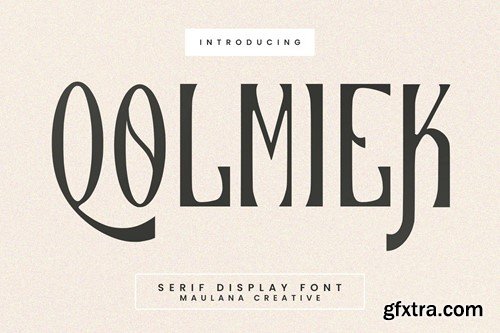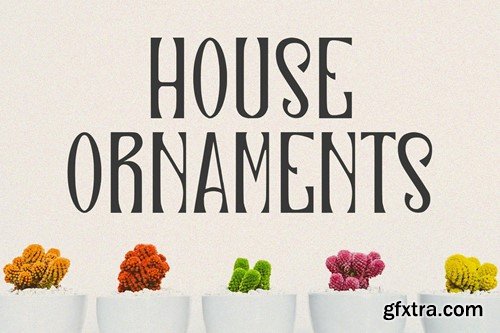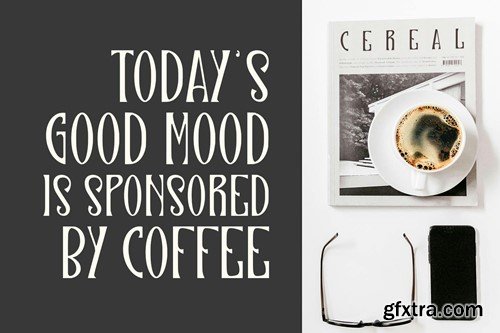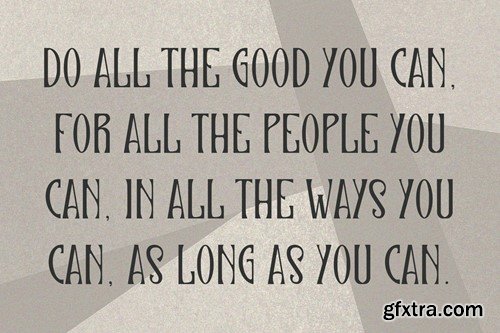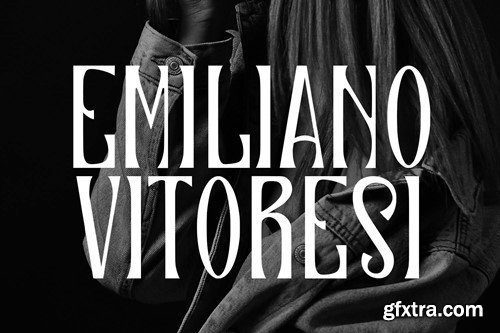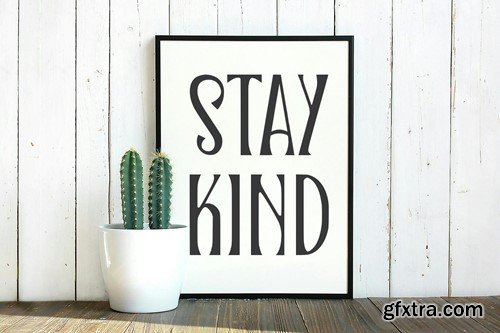
Qolmiek Serif Display Font R4HSHJ7
Qolmiek Serif Display Font
Qolmiek serif display typeface. Heavy stroke, fun character with a bit of ligatures. To give you an extra creative work. Qolmiek serif display typeface support multilingual more than 100+ language. This font is good for logo design, Social media, Movie Titles, Books Titles, a short text even a long text letter and good for your secondary text font with script or serif. Make a stunning work with Qolmiek serif display typeface. What you get: Cheers, Maulana Creative